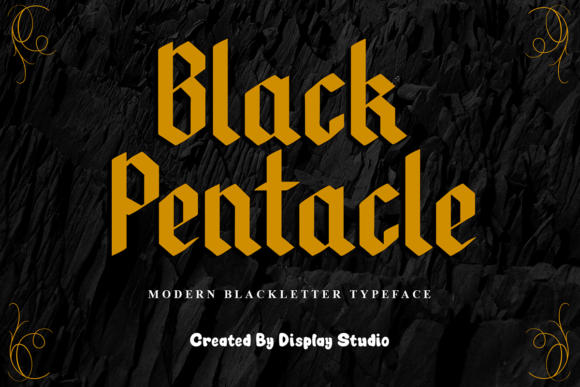
Black Pentacle Font: An Enchanting Journey into Typographic Sorcery
Prepare to be spellbound by Black Pentacle Font, the blackletter font that captivates imaginations and unleashes creative potential. Its mesmerizing curves and angular strokes dance across your designs, leaving an imprint of elegance and intrigue. This font is not merely a collection of letters; it is a gateway to a world of boundless possibilities. Allow Black Pentacle to transport you to a realm where typography transcends the mundane and becomes an art form.
Unleash a symphony of visual allure with Black Pentacle, a font that captivates the eye and sparks conversations. Its imposing presence and uniquely shaped letters command attention, transforming your designs into captivating masterpieces. Whether you're crafting a striking logo, designing an enchanting invitation, or weaving magical words into a spellbinding story, Black Pentacle will cast its charm, enchanting your audience and leaving them spellbound.
Black Pentacle is more than just a font; it is a tool that unlocks your creative potential. With its meticulously crafted details and captivating presence, this font breathes life into your artistic visions, allowing you to weave narratives and cast spells through the written word. Inspire awe and admiration as your designs come alive with the enchanting magic of Black Pentacle.